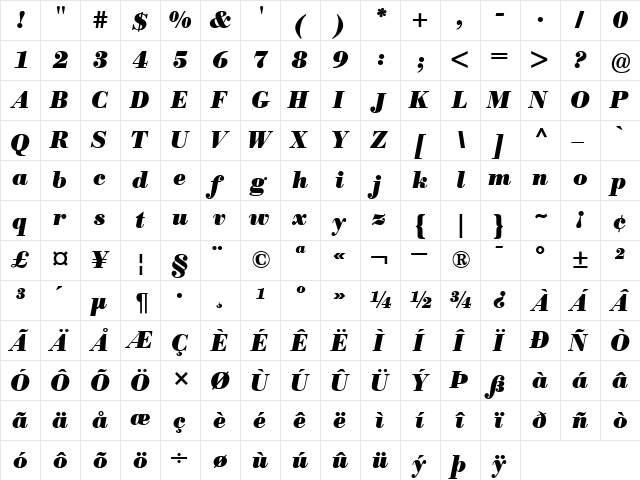
BodoniBE BoldItalic Font Preview
BodoniBE BoldItalic
Design Context for BodoniBE Typeface
BodoniBE offers clean, dependable letterforms without strong stylistic allegiance, making it a practical choice for designers who need flexibility. The slanted form adds forward momentum and visual energy. The heavy weight commands attention and anchors typographic hierarchies.
Pro Tip: Try BodoniBE for annotation and caption copy alongside an upright companion — the contrast in angle creates a dynamic but ordered typographic system.